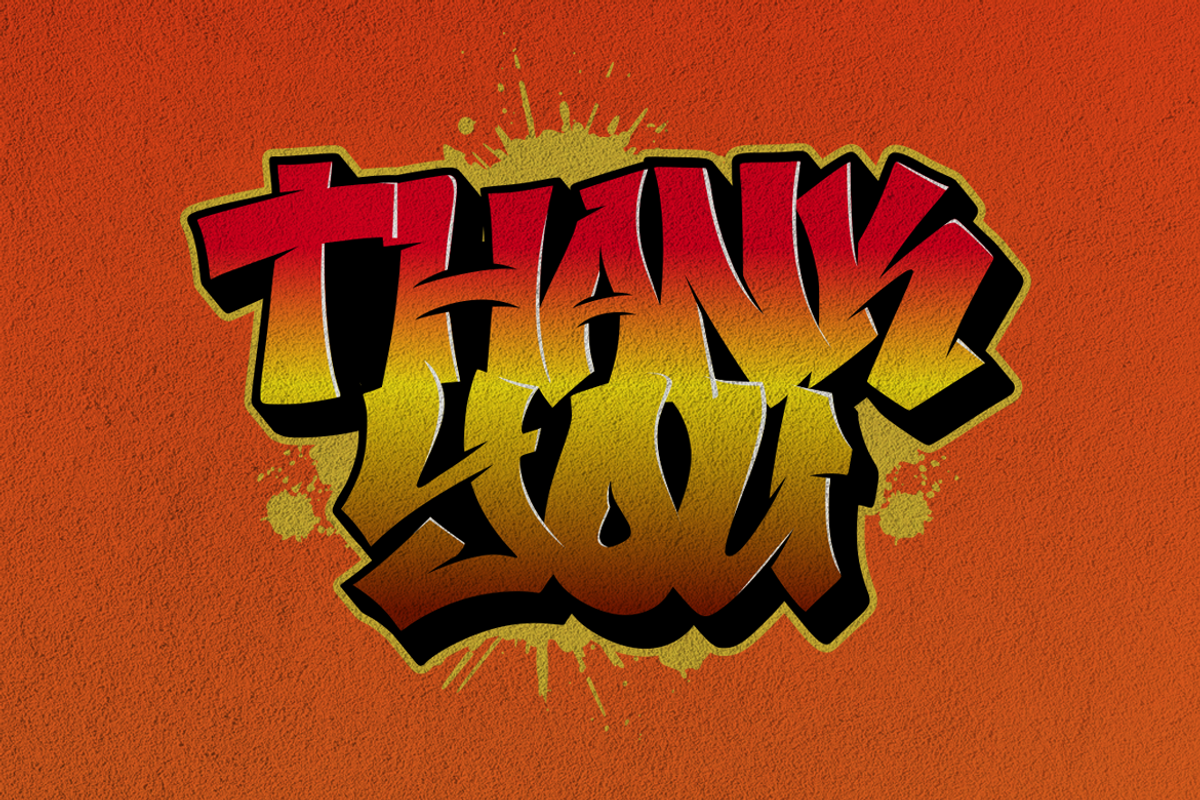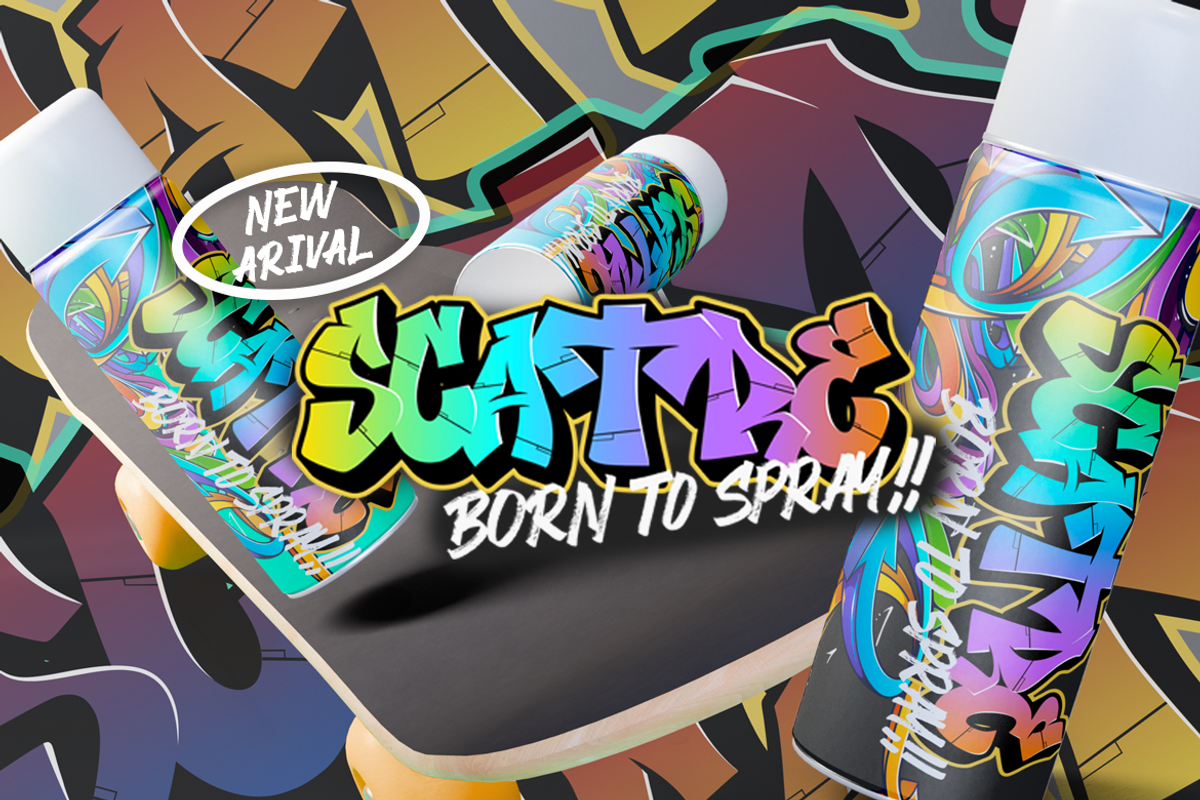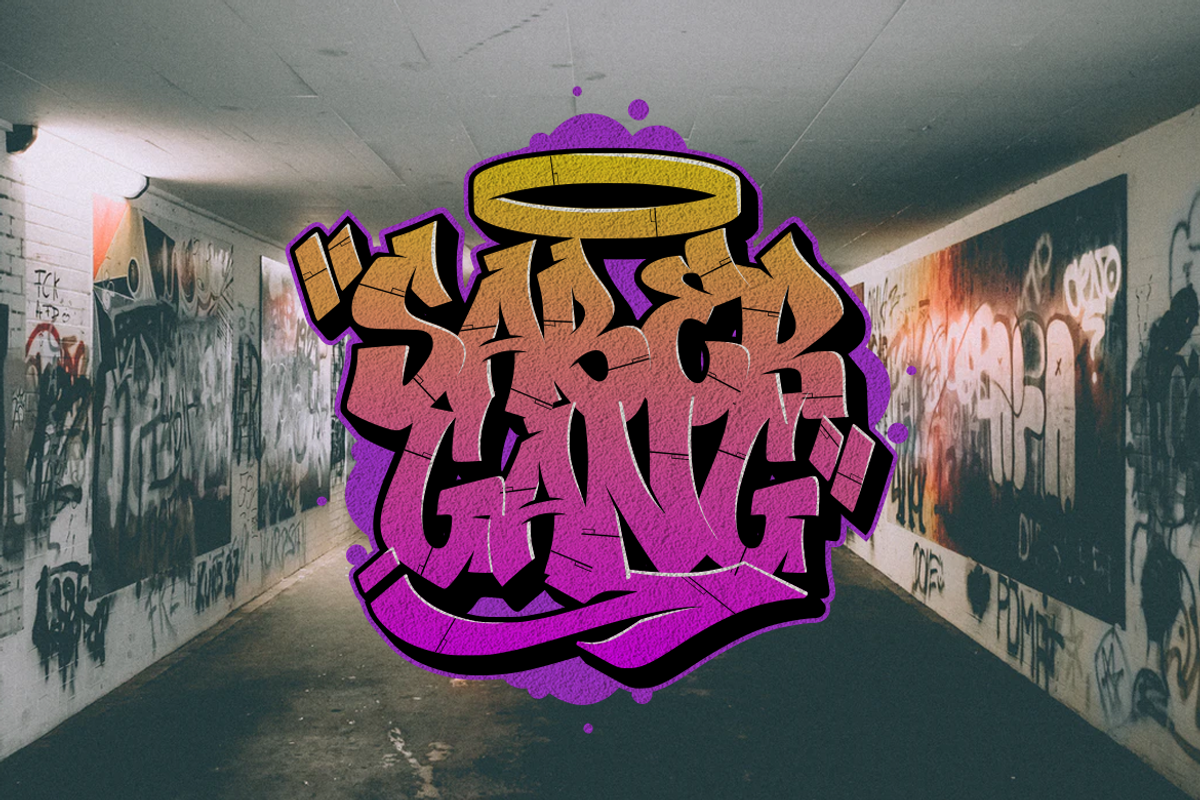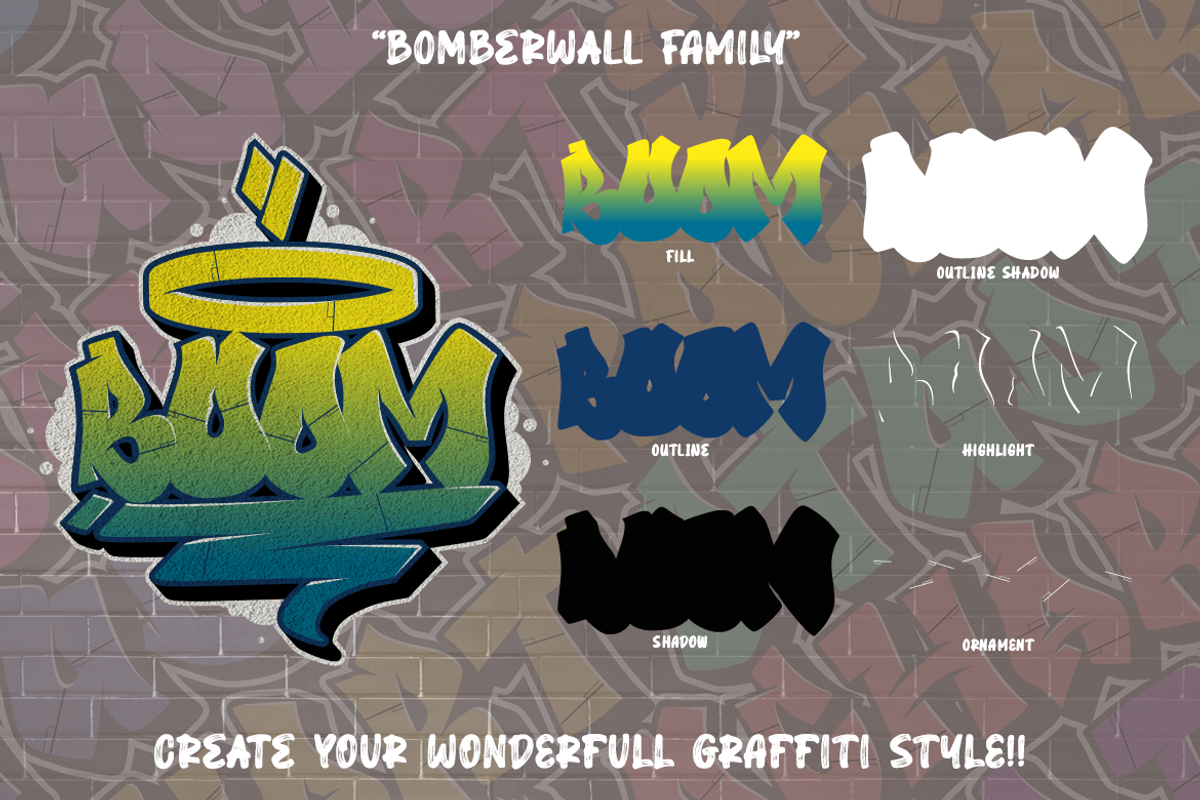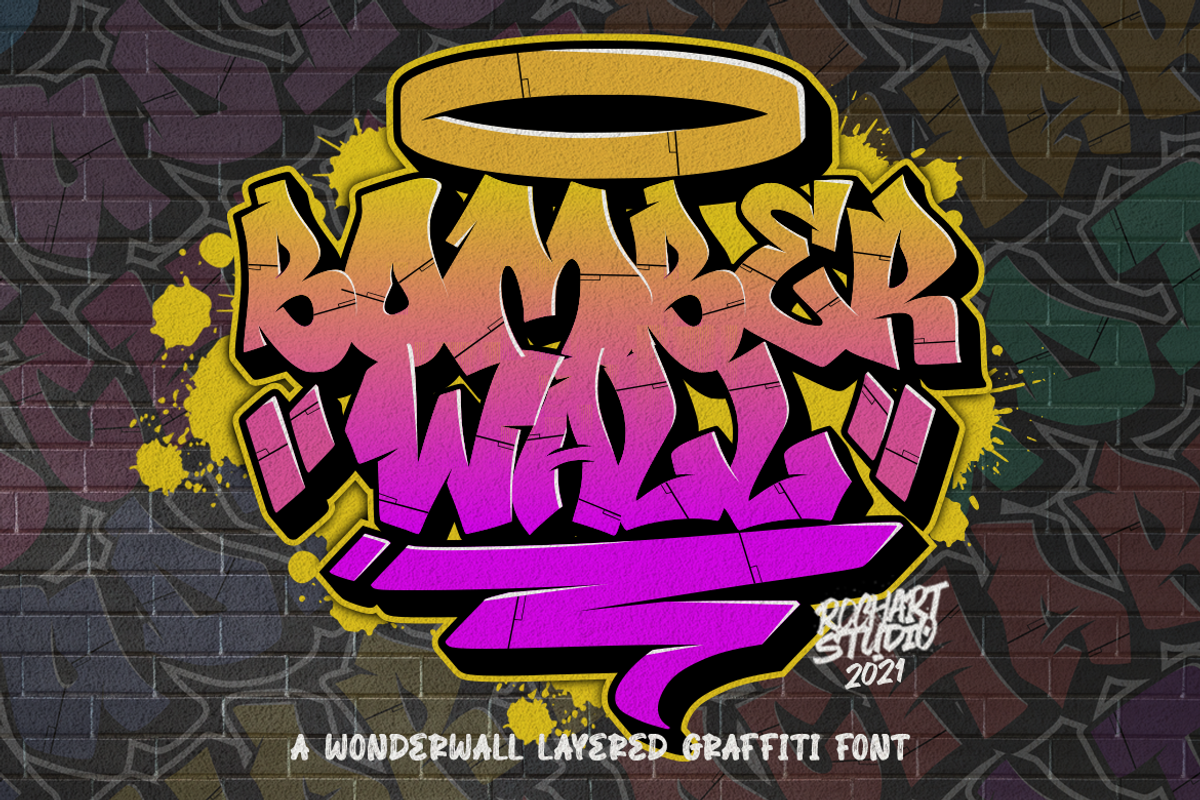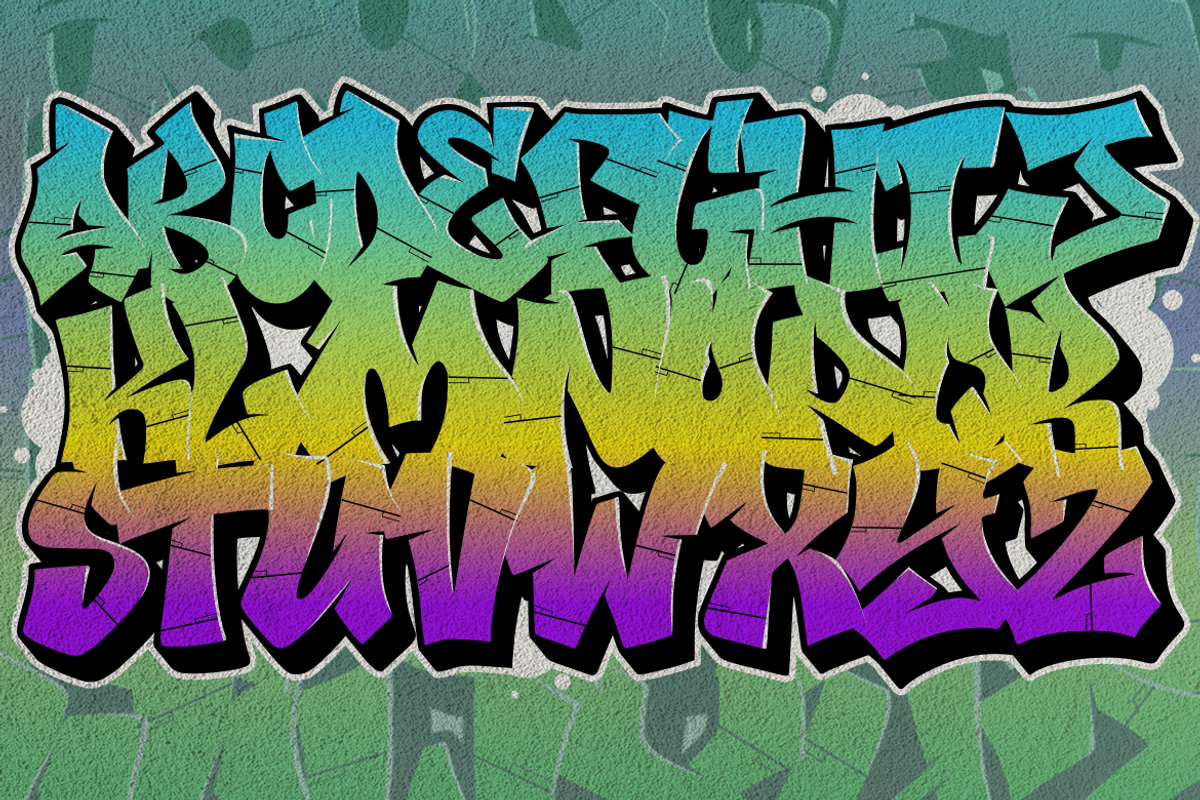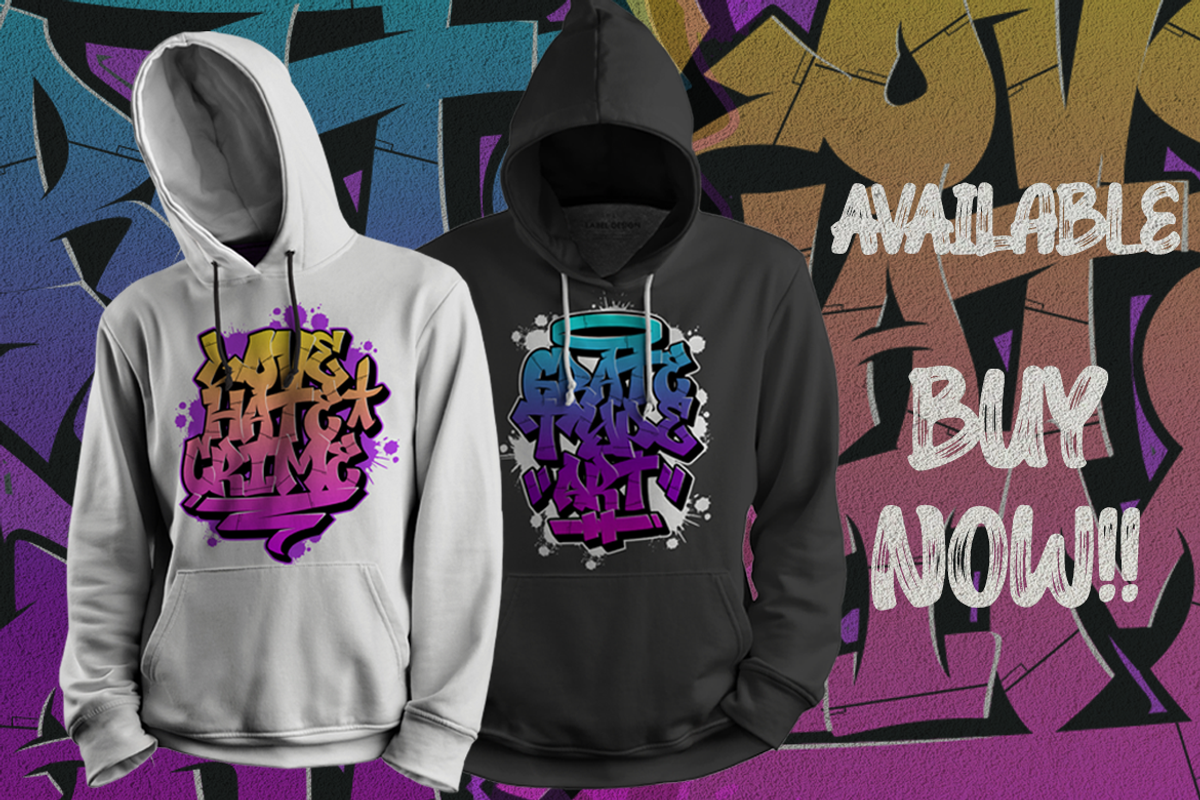
Bomber Wall Graffiti Font
Bomber Wall inspired by graffiti style with a fun theme very good for graffiti poster, Hip Hop music, kids poster, dance poster, flyer, children book, cartoon, comic etc. These fonts would be perfect to combine in your design.
This font contain of Uppercase, Lowercase, Number, Symbol, Punctuation, also support multilingual and already PUA encoded.